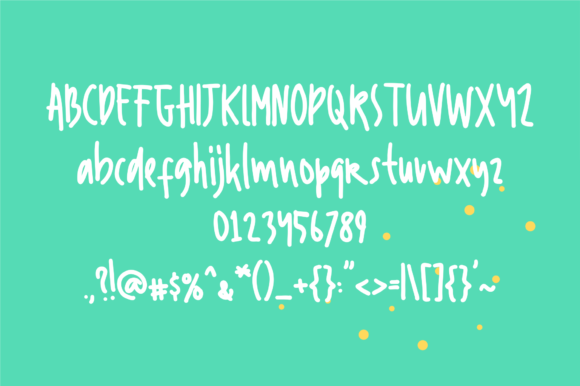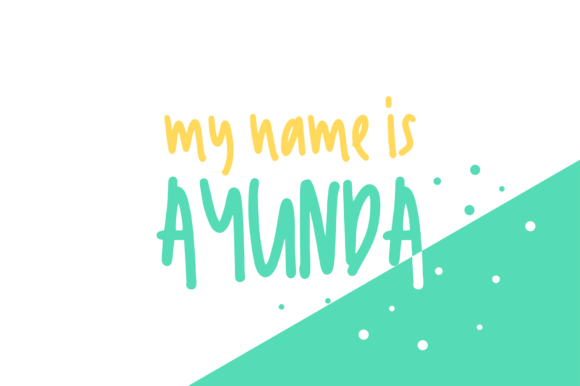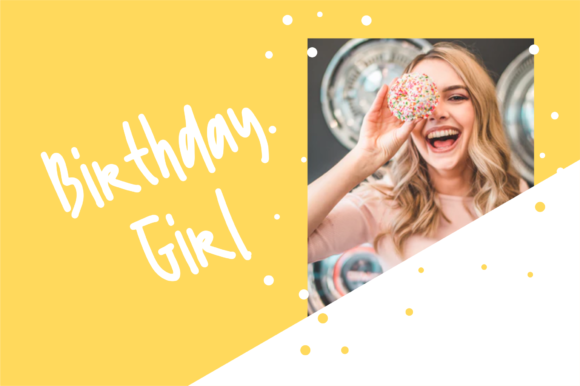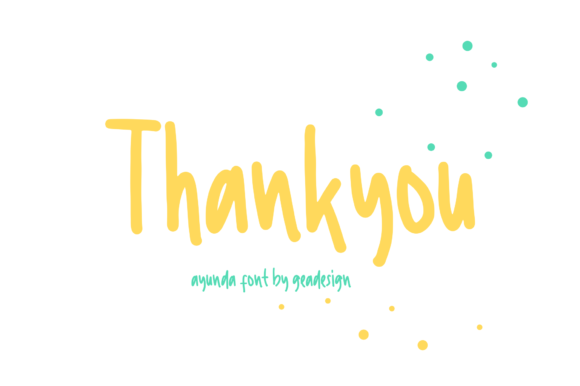
HomeScript FontsAyunda Font Script Fonts Ayunda Font FacebookXPinterestWhatsApp Ayunda Font Poster 2 Ayunda Font Poster 3 Ayunda Font Poster 4 Ayunda Font Poster 5 About Ayunda Font Ayunda is a playful handwritten font that will make your design stand out! DOWNLOAD NOW People also explored Enamel Romantic Mug Mockup Mister Boring Font Badjigoer Font Lore Nekromantea Font Mugiwars Font Benfham Font Qristalla Font Arkave Font Olly Vetta Font 291 0 TagsAyunda Font Previous articleAmlight FontNext articleSmile and Love Font LEAVE A REPLY Cancel reply Comment: Please enter your comment! Name:* Please enter your name here Email:* You have entered an incorrect email address! Please enter your email address here Website: Save my name, email, and website in this browser for the next time I comment. Personal Use Free Vembazax Rm Personal Use Free Read more about this font Carnivals Personal Use Free Read more about this font Delions Personal Use Free Read more about this font Bintang Noela Personal Use Free Read more about this font BLOG How to Cut Any Font on Cricut: Convert a Font to SVG (Free) Turn any font into a clean SVG so it cuts crisp on Cricut - a quick 3-step workflow using a free font-to-SVG tool. Top 7 Google Fonts Alternatives for Faster and Privacy-Friendly Web Design (2025) To increase your work productivity, choose the most readable fonts. Fonts That Capture the Spirit of New York City